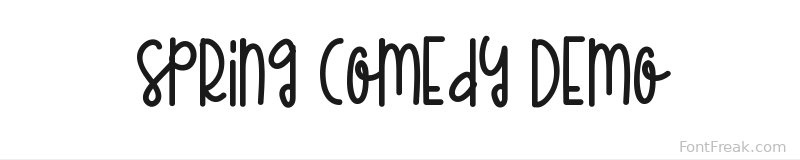
Spring Comedy Demo
The Spring Comedy Demo font by Noah Type is a delightful display typeface that captures the essence of whimsy and playfulness. With its unique handwritten style, this font features a combination of rounded and irregular strokes, giving it a casual yet charming appeal. The stroke weight is consistent, offering a friendly and approachable look, while the slightly varying letter spacing adds a touch of spontaneity that enhances its overall character.
This font is perfect for a variety of creative projects. It shines in settings such as wedding invitations, where its lightheartedness can evoke joy. Additionally, it works wonderfully for children's book titles or illustrations, capturing the attention of young readers with its fun aesthetic. Restaurant menus can also benefit from the Spring Comedy Demo font, as its playful nature adds a welcoming vibe to any dining experience. Furthermore, it is an excellent choice for social media graphics, allowing content creators to engage their audience with eye-catching visuals.
The target audience for this font includes graphic designers looking for a fresh, expressive typeface, small business owners seeking to inject personality into their branding, and content creators who wish to enhance their visual storytelling.
What sets the Spring Comedy Demo font apart is its ability to convey a sense of joy and creativity effortlessly. Its versatility allows it to be used across different mediums while retaining its distinctive charm. Whether you are designing cheerful marketing materials or crafting playful invitations, the Spring Comedy Demo font free download offers an excellent way to elevate your projects and make a memorable impression.